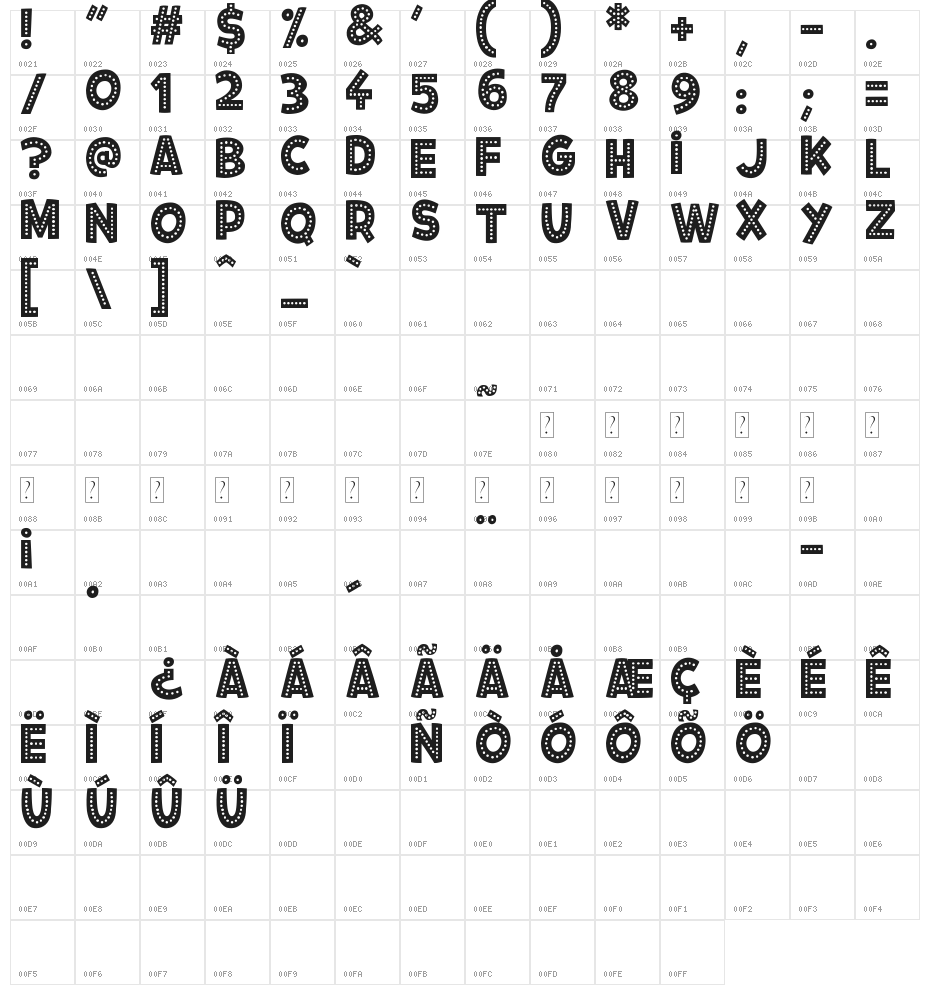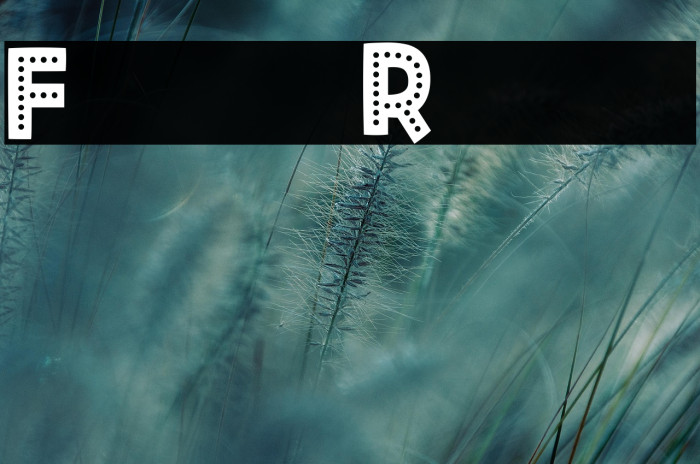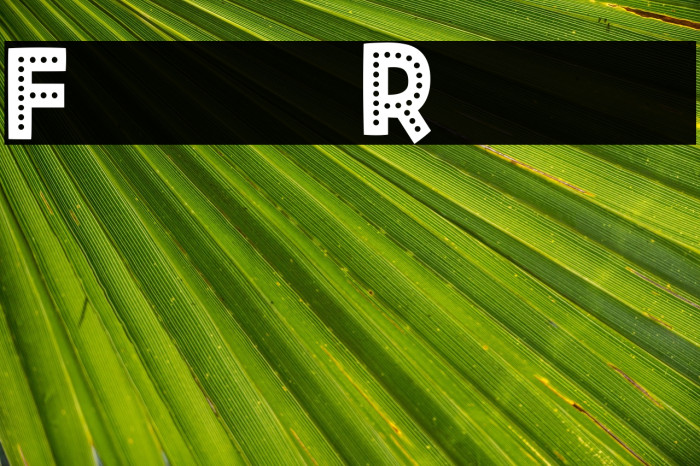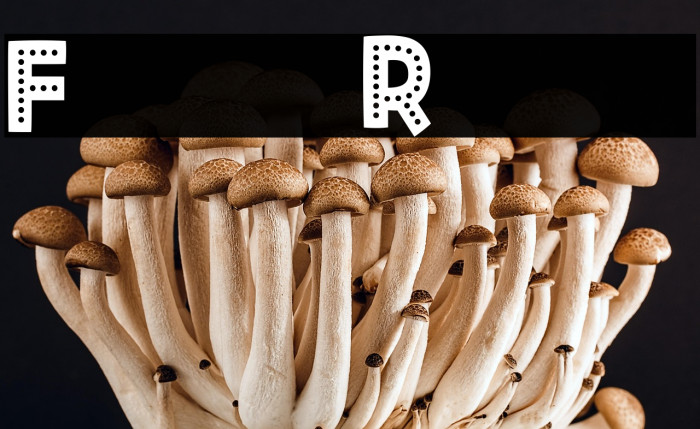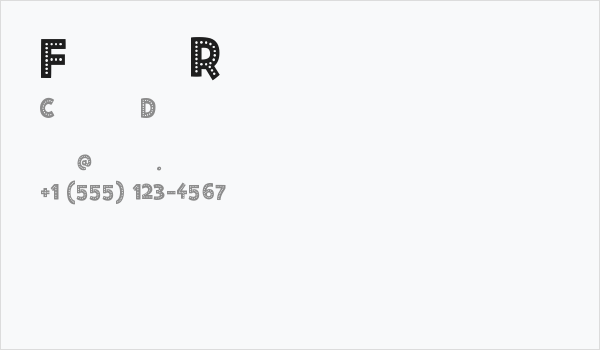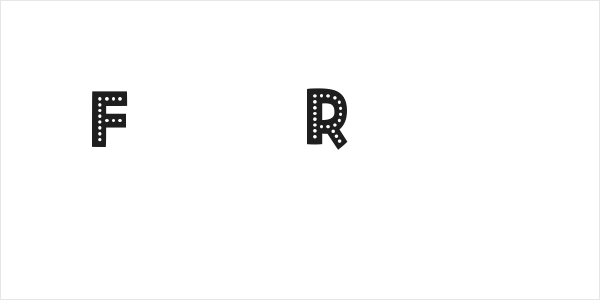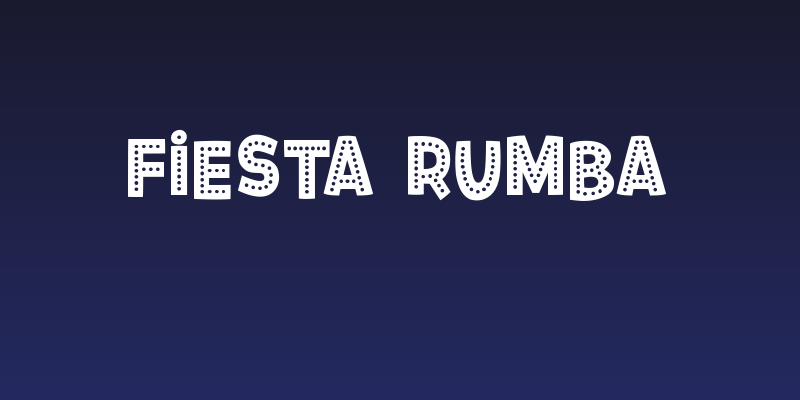
Fiesta Rumba Font
Fiesta Rumba Description
This font features a bold, decorative style with a playful and festive appearance. Each character is adorned with a series of evenly spaced dots, giving it a marquee or carnival light effect. The uppercase letters are uniformly bold, with a consistent height and width, creating a strong visual impact. The numbers and special characters maintain the same dotted pattern, ensuring a cohesive look across all elements. This font is ideal for designs that require a lively and eye-catching aesthetic, such as event posters, party invitations, or any project that aims to convey a sense of fun and excitement.
| Proposed Projects | Ideal for event posters, party invitations, festive banners, and playful branding projects. |